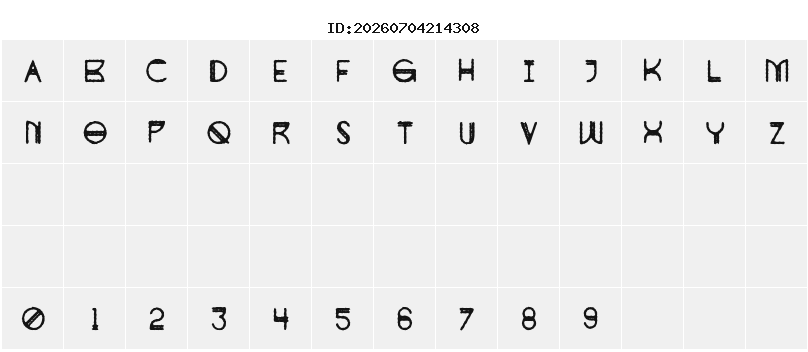
Doppelquer Preview
• Font Name: Doppelquer
• Full Font Name: Doppelquer
• Version: Version 1.00 April 21, 2014, initial release
About Doppelquer.ttf
Doppelquer.ttf is a modern, elegant sans-serif font designed for ultimate readability and visual harmony. Perfect for branding, headlines, web design, and print materials.